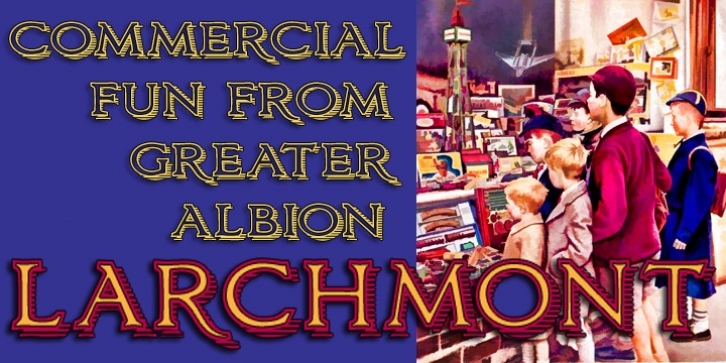
Larchmont was designed by Paul Lloyd and published by Greater Albion Typefounders. Larchmont contains 6 styles and family package options.
Larchmont is a piece of pure fun, inspired by inter-war enamel advertising hoardings (often known as 'street jewelry') and by traditional sign writing. It's ideal for poster design, book covers and any sort of signage, or just about anywhere you need more than a hint of flair. Larchmont combines a sense of fun with a traditional ethos. The family is offered in three widths, each in upright and oblique forms. Revive the golden age today!
Larchmont·
Larchmont Oblique·
Larchmont Condensed·
Larchmont Condensed Oblique·
Larchmont Expanded·